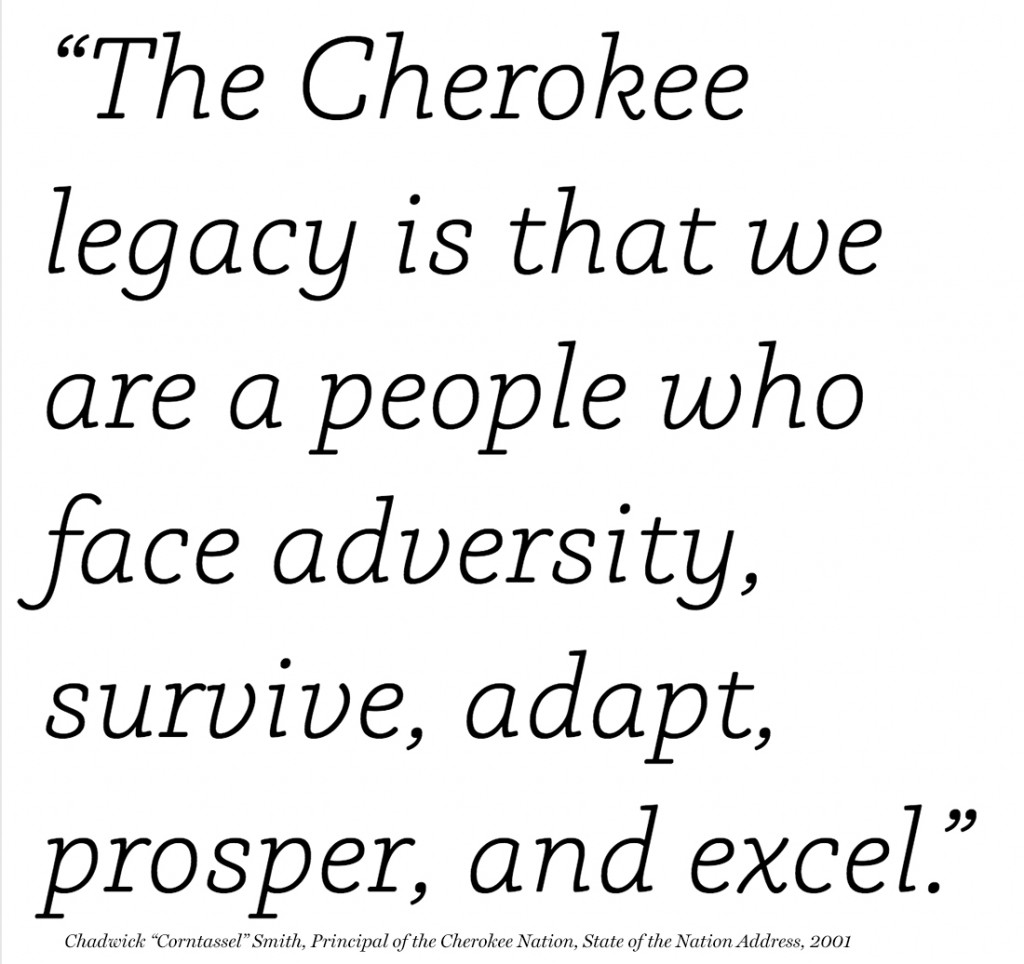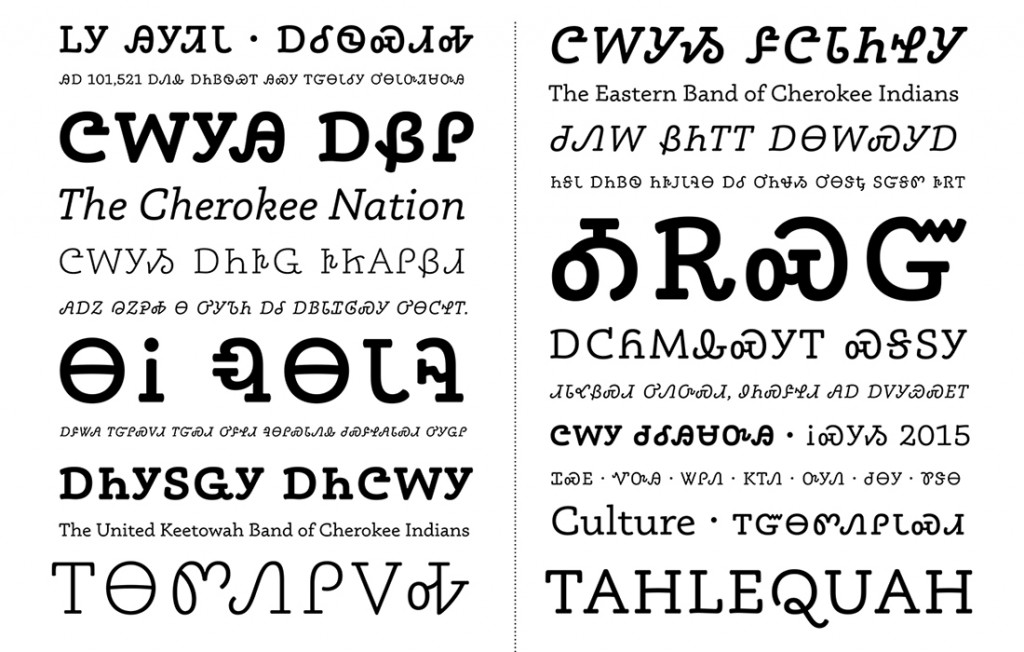
Name: Phoreus Cherokee
Designer: Mark Jamra
Foundry: Type Culture
Release Date: 2014; version 2.0 in October 2015
Back story: In the summer of 2011, two representatives from the Language Technology Office of the Cherokee Nation attended a type conference to issue a plea for new digital Cherokee typefaces. The few existing Cherokee fonts at the time were of poor quality, lacking bold or italics. With 316,000 members, the Cherokee are the largest tribal nation in the United States, but only 22,000 native speakers remain.
Designer Mark Jamra was moved by the need for a typeface that would help preserve a nation’s language and culture, and began by adapting a Latin typeface he already had in the works. To develop the letterforms (including a cursive italic inspired by handwriting), Jamra studied the Cherokee syllabary developed between 1809–1824, along with 180 years of manuscripts provided by the Cherokee Nation and the Smithsonian Institute.
Why’s it called Phoreus Cherokee? Phoreus is the ancient Greek word for bearer or carrier and refers to type (and the Cherokee syllabary) as a vehicle of language and visual culture.
What are its distinguishing characteristics? This serif face is a harmonious mix of closed and open shapes, straight strokes, and playful curves. The ornate historic Cherokee glyphs have been opened up and simplified for legibility. The current 2.0 update features a new lowercase in different weights and styles—the first addition to the syllabary in its 195-year history. There’s also a small-caps version, so that bilingual documents can be set in Cherokee text (which looks like small caps to a Latin reader, with sentences beginning with a large syllable and then continuing with smaller glyphs) that maintains the same visual density as English upper- and lower-case text.
What should I use it for? This typeface was designed for use in the Cherokee language with a Latin word or phrase added here and there. Phoreus’ clear, simple shapes are well suited to the very young readers needed to keep the language alive. It works nicely on English language websites, and its open letterforms are an unexpected option to swap in for editorial or advertising text you might have otherwise set in Archer.
Who’s it friends with? News Gothic is a straightforward pairing, as is New Century Schoolbook. For something a little more offbeat, try Forza.